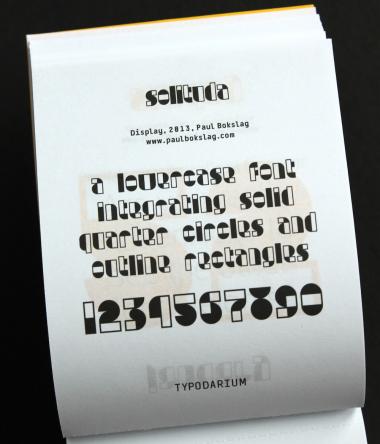
Sometimes i wish i could go with such simplicity and goodness, but it seems ornate ultracomplex shapes act like a drug with me !
Good work! This reminds me of folded paper, sort of. 10/10
Delightfully balanced. 10/10
The negative space used to great effect.
so creative! 10/10
solituda: Sunday 25 January in Typodarium 2015